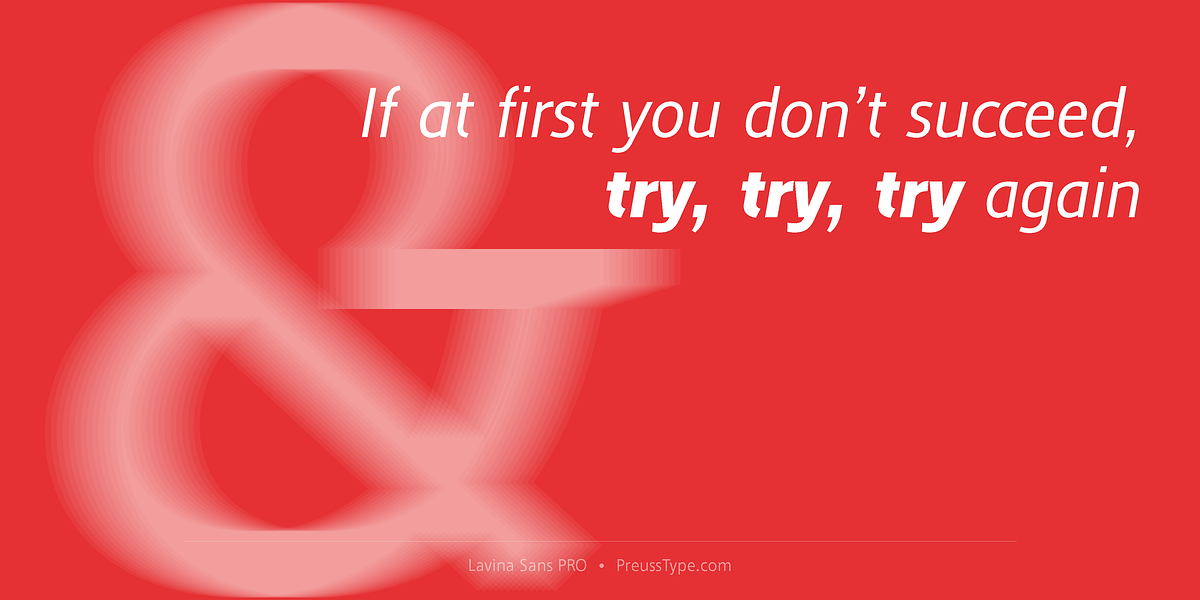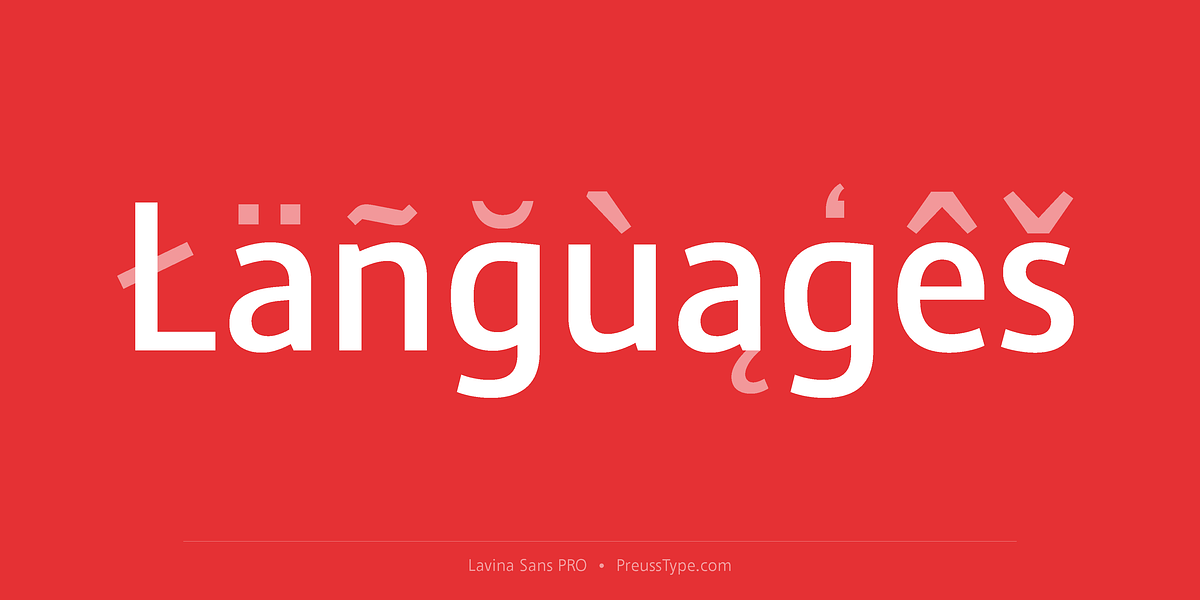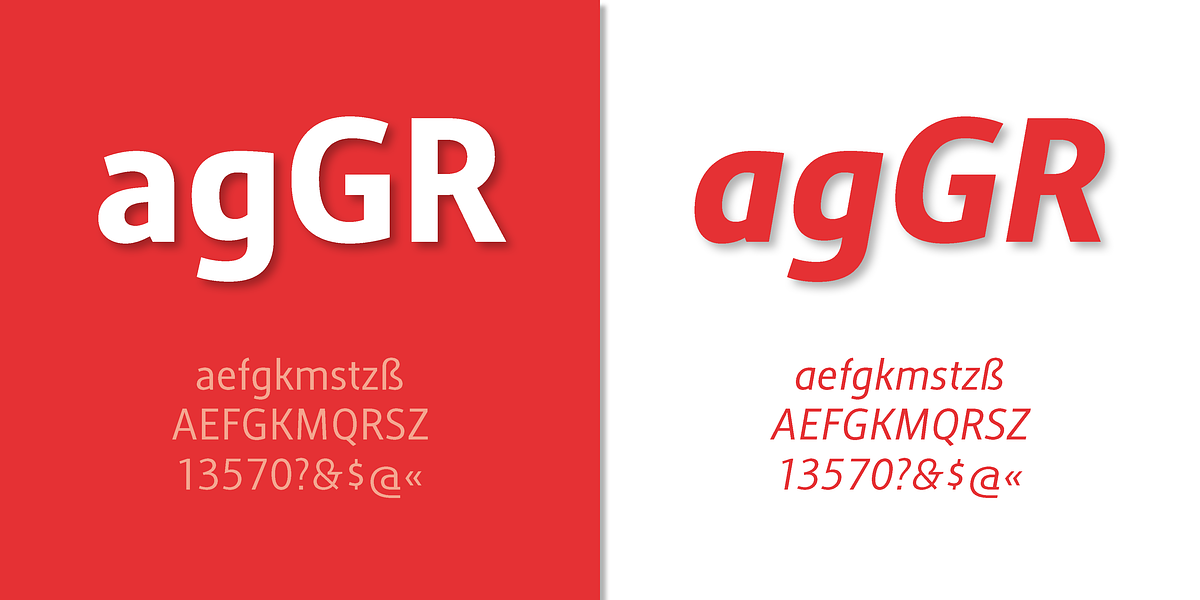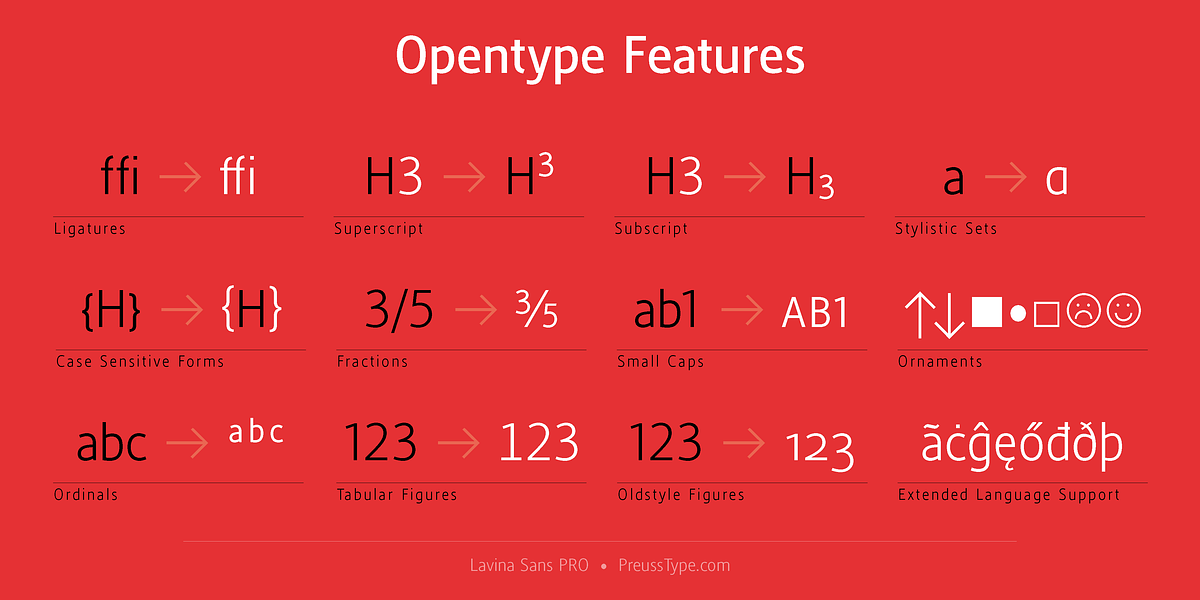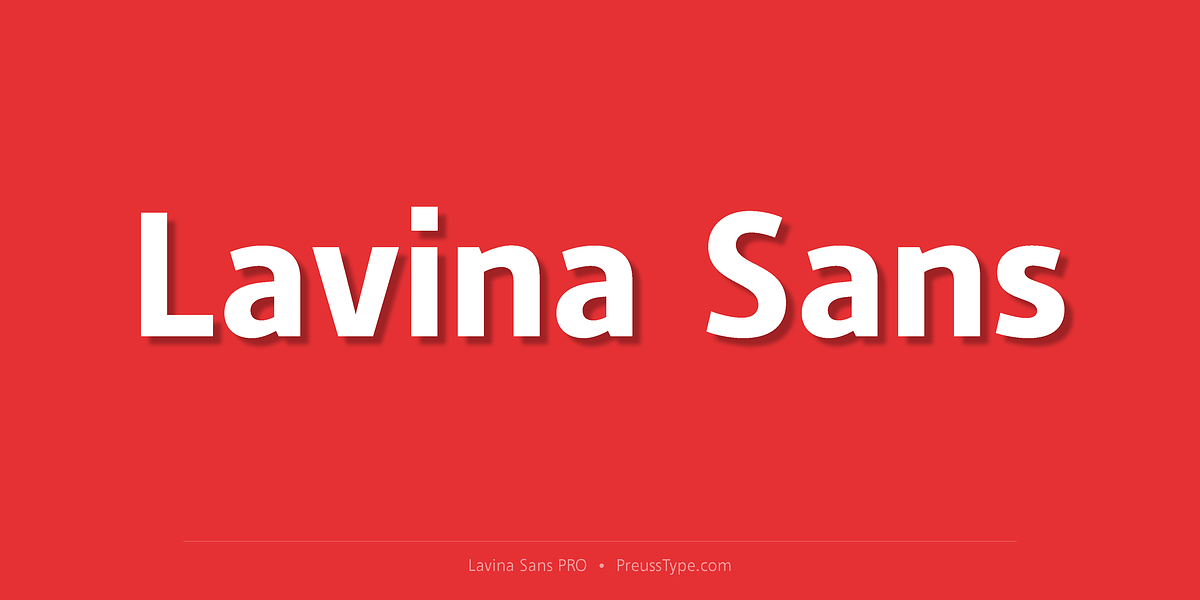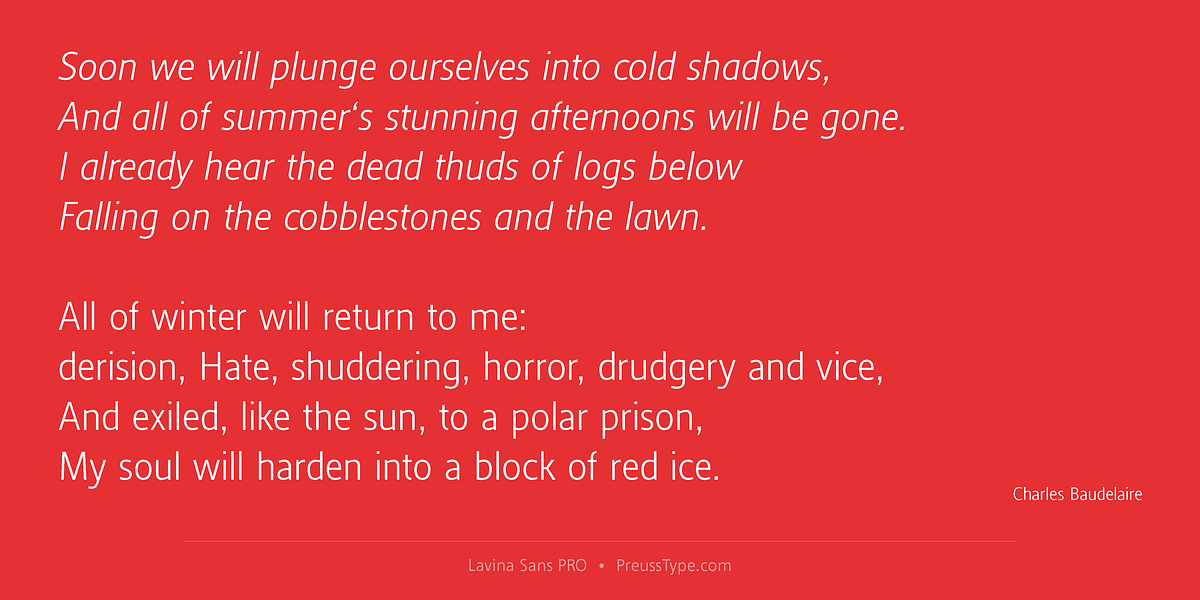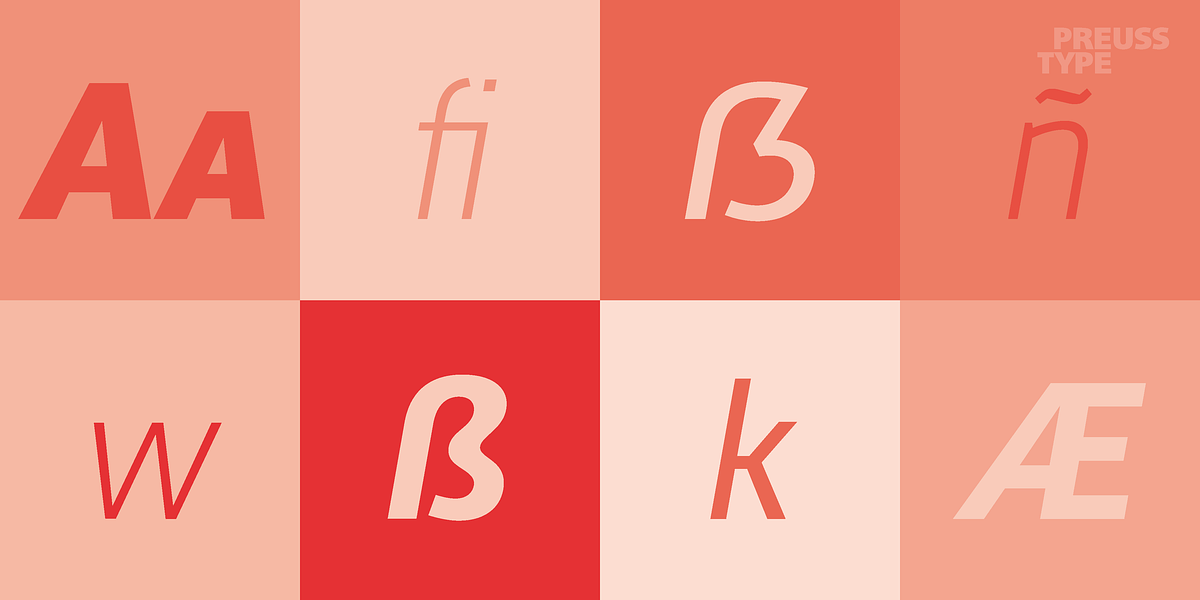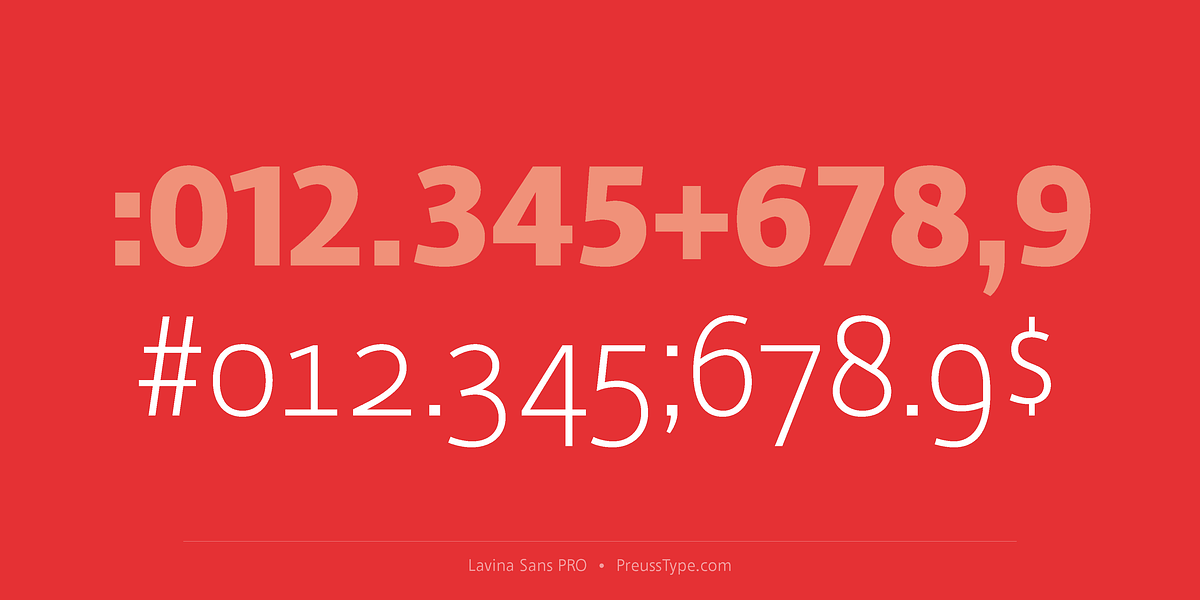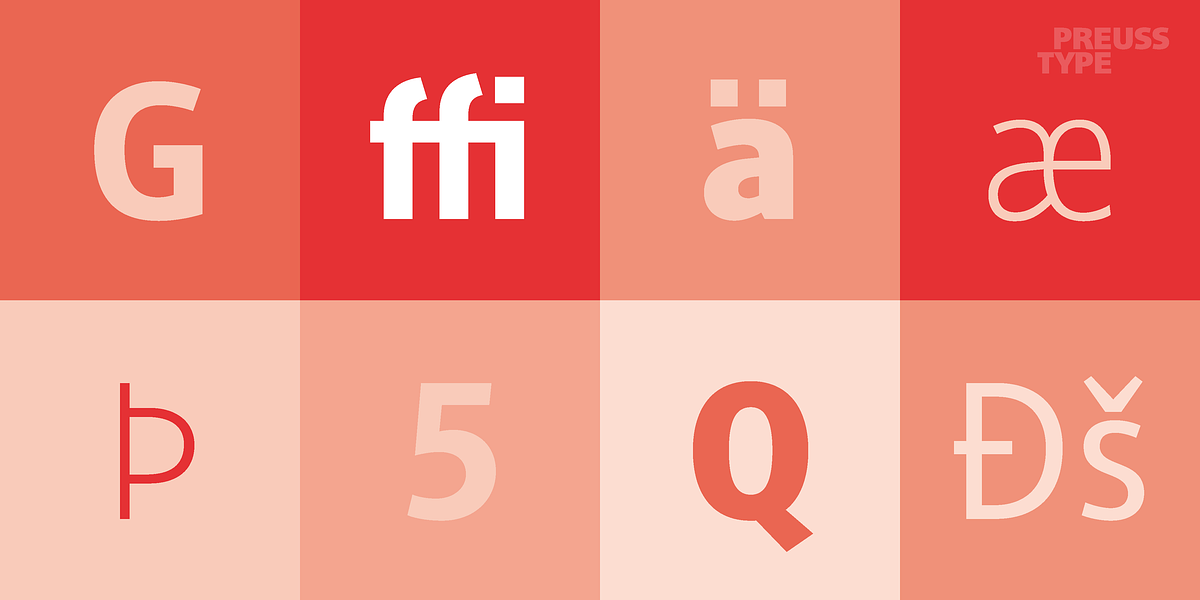
Lavina Sans PRO
The Lavina Family is a humanistic sans-serif typeface characterized by its clear and open characters. It features low contrast and simplified shapes for readability. The family includes a range of weights from light to ultra, offering versatility for various applications like web design, printed materials, branding, logos, posters, and labels.